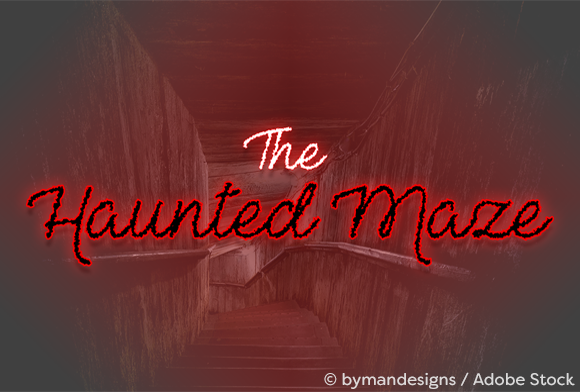
Unleash the Mysterious Charm of Your Creative Projects with The Haunted Maze Font!
Step into the enchanting realm of typography with The Haunted Maze Font, a spellbinding script typeface that will cast a magical aura over your designs. Inspired by the allure of Halloween, this font exudes a raw and captivating energy that will leave your audience spellbound.
The Haunted Maze Font: A Journey into Enchanting Script
Experience the dark allure of The Haunted Maze Font, a meticulously crafted script typeface that will transport your creative visions into a realm of enchantment. Each character is a work of art, meticulously designed to evoke a sense of mystery and intrigue. With its rough edges and stunningly unique design, this font is perfect for projects that demand a touch of the extraordinary.
Unleash Your Creativity with Endless Possibilities
Let your imagination run wild with The Haunted Maze Font. Its versatility knows no bounds, making it the perfect choice for a wide range of projects. Whether you're creating invitations for a Halloween party, designing posters for a haunted house, or crafting eye-catching social media graphics, this font will add an unforgettable touch of intrigue.
Create a Hauntingly Memorable Halloween Experience
Embrace the spirit of Halloween with The Haunted Maze Font. Its eerie charm will add a touch of spine-tingling delight to your Halloween-themed designs. Use it to create invitations that hint at hidden secrets, posters that promise an unforgettable night of thrills, and social media posts that will leave your audience craving more.
Make a Statement with Distinctive Logos and Branding
The Haunted Maze Font is not just for Halloween enthusiasts; it's a powerful tool for creating distinctive logos and branding that will make your business stand out from the crowd. Its bold and captivating style will command attention and leave a lasting impression on your customers.
Type * (asterisk) for the Heart-Stirring Charm of The Haunted Maze Font
Enter the enchanting world of The Haunted Maze Font by simply typing an asterisk (*). Witness the magic unfold as this extraordinary font transforms your words into captivating works of art. Let its mesmerizing curves and haunting charm ignite your creativity and leave your audience spellbound.